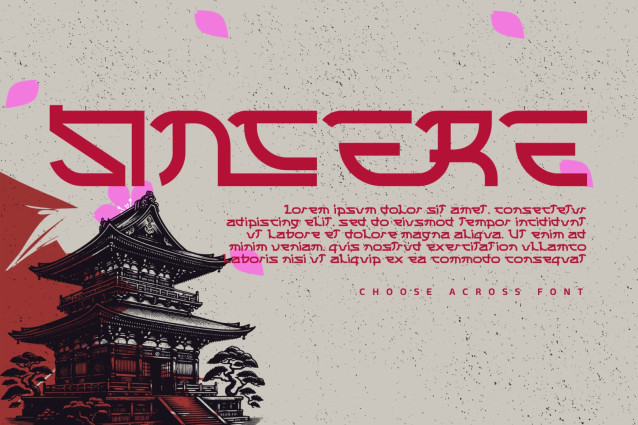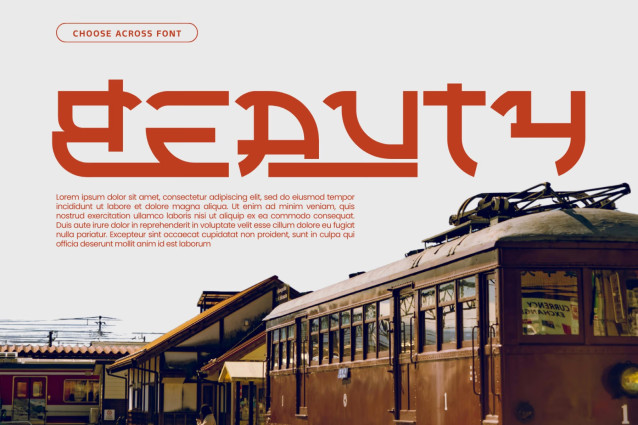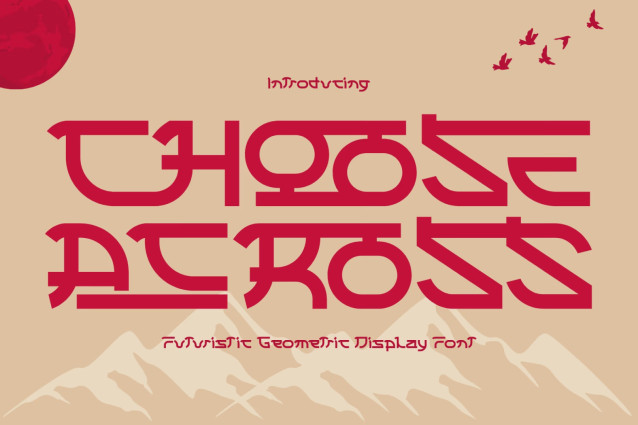
CHOOSE ACROSS – GEOMETRIC FONT
CHOOSE ACROSS – GEOMETRIC FONT is a bold retro display serif font that blends timeless Art Deco elegance with modern geometric precision. Designed with thick monoline strokes, rounded letterforms, extended horizontal bars, and distinctive angular details, this typeface creates a striking visual identity that is both sophisticated and memorable. Its decorative construction gives every word a strong architectural presence while maintaining excellent readability for large-format typography.
Inspired by vintage design yet refined for contemporary projects, CHOOSE ACROSS is perfect for branding, logos, editorial headlines, fashion campaigns, luxury packaging, restaurant identities, café branding, posters, signage, album covers, and premium product designs. Whether you’re creating a nostalgic visual identity or a modern statement piece with classic influences, CHOOSE ACROSS delivers bold character, refined craftsmanship, and an unmistakable retro charm that commands attention.